Sharp FM is the audio channel of Sharp Type. This mix series features monthly collaborations with guests from a variety of musical disciplines. We design the covers and tracklist graphics, giving us an opportunity to showcase our current typefaces, have fun with typography, and even create new fonts for the occasion. Like a good mix, typefaces are storytelling devices, and we hope you enjoy exploring this unique project.
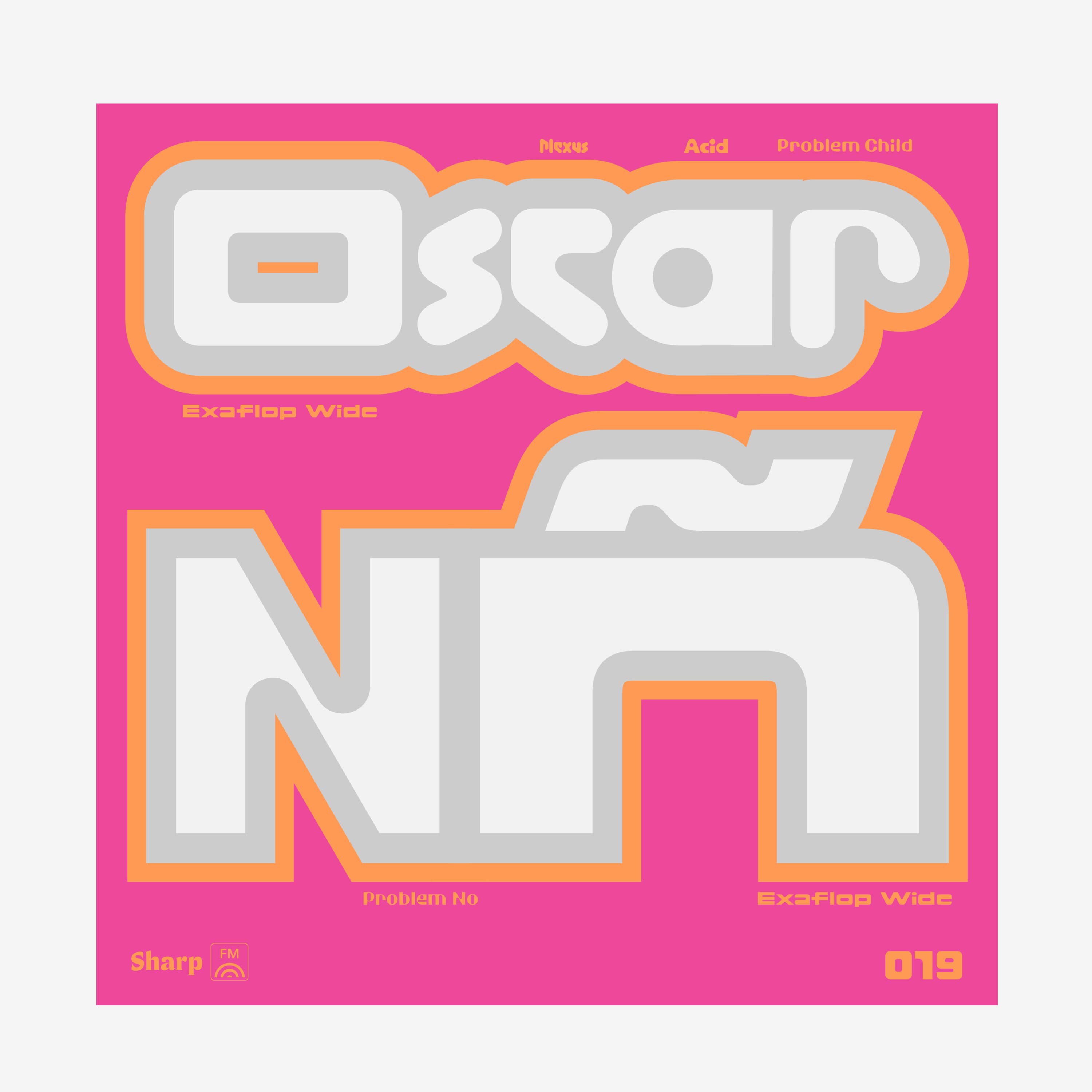
Sharp FM 024: Miho Hatori for Sharp Serif Text
The Viriditas mixtape is a parallel path to the Viriditas project: tracks by artists I deeply admire, assembled as another way of listening.
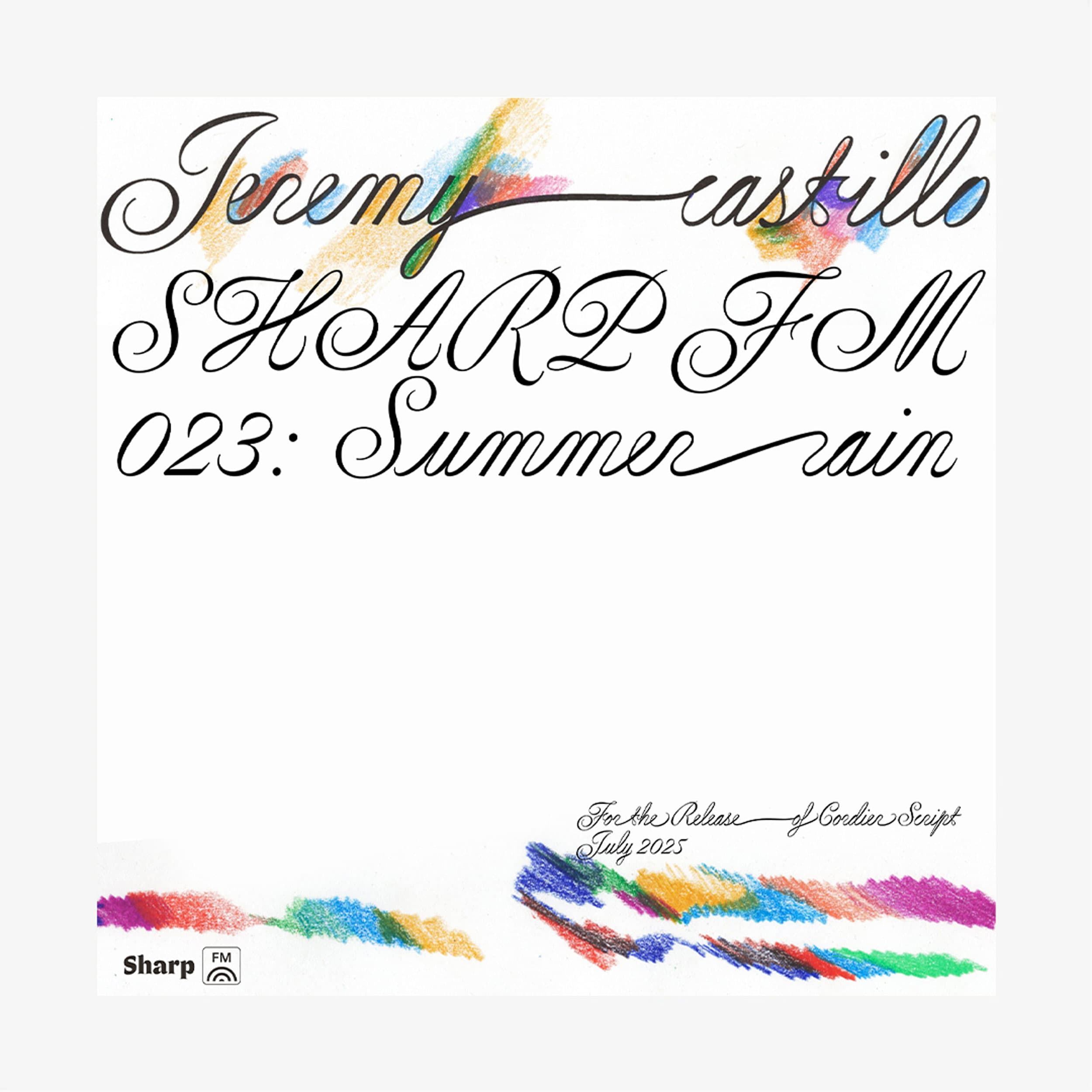
Sharp FM 023: Jeremy Castillo for Cordier Script
A somber summer rain mix with a bit of off the beaten path synthpop, guitar laden disco, reggae dubs, and stuff played at the wrong speed.
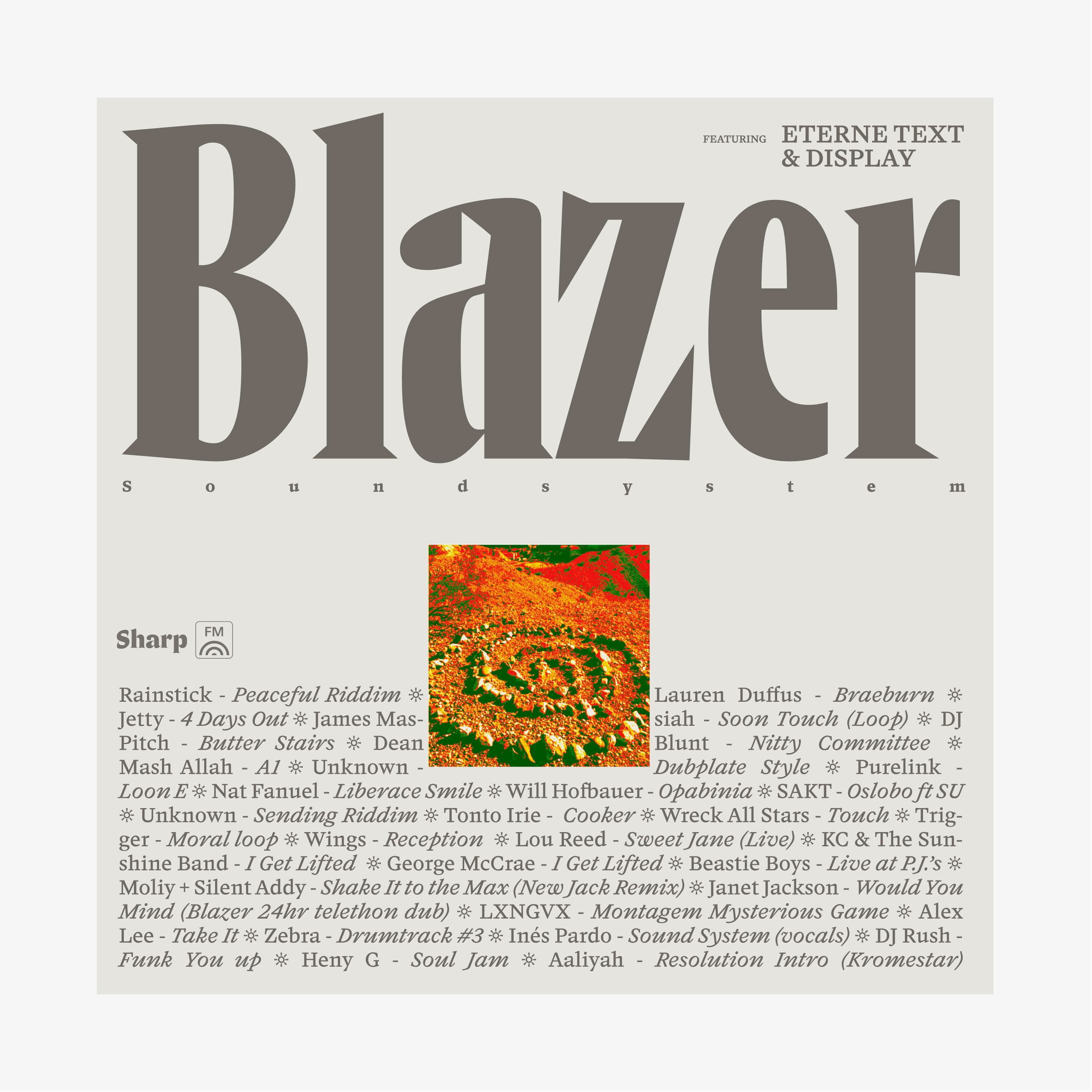
Sharp FM 022: Blazer Soundsystem for Eterne Superfamily
This is a NYC springtime mix, defrosting from interior emotional space, out to the street, the b-ball courts, the club, n2 tha night…
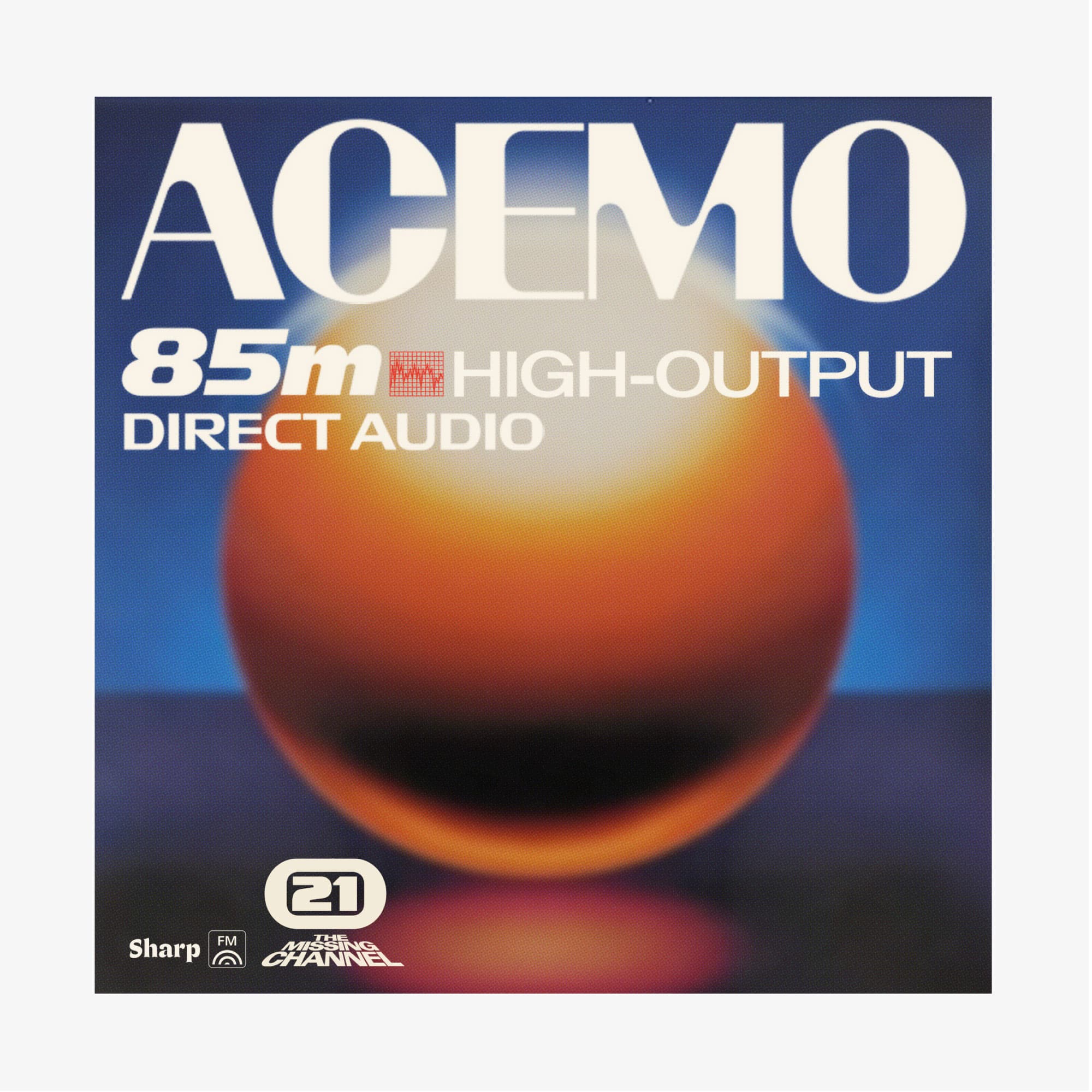
Sharp FM 021: ACEMO for Record Superfamily
Sharp FM 021 comes courtesy of AceMo, one of NYC’s most prolific producers and DJs
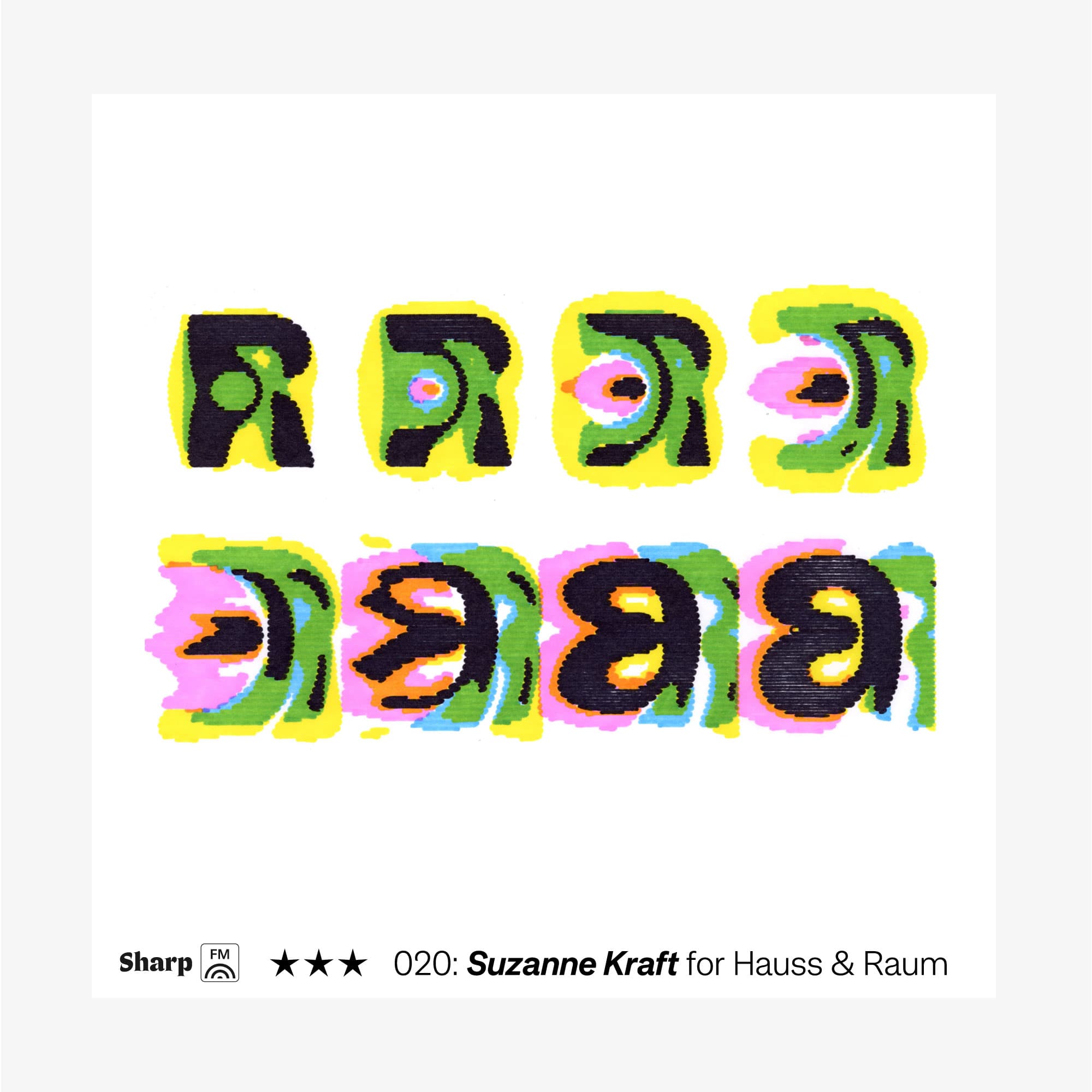
Sharp FM 020: Suzanne Kraft for Hauss & Raum
Recommended environments: driving solo, home alone, or a long metro ride.
Sharp FM 019: Oscar Nñ for DOSS
This mix is dedicated to those sexy drums that you hear in club music. I was inspired by the different drum patterns and instruments that make us dance. At 160-140 bpm, this is one of the hardest mixes I’ve recorded but also one of the most free and unexpected.
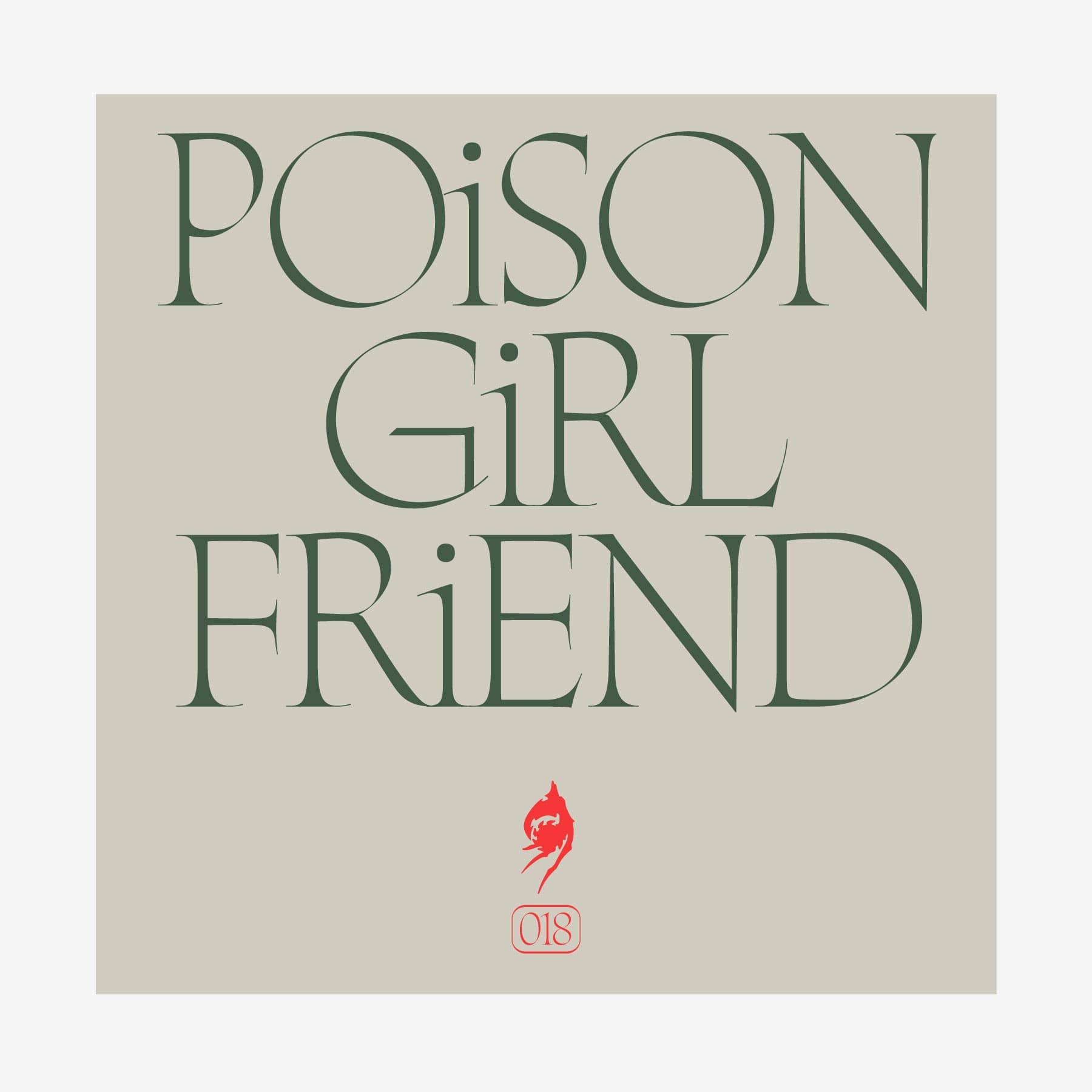
Sharp FM 018: POiSON GiRL FRiEND for Sharp Freehand
"Gen X meets Gen Z.
Love, love, love…
L’amour, l’amour…
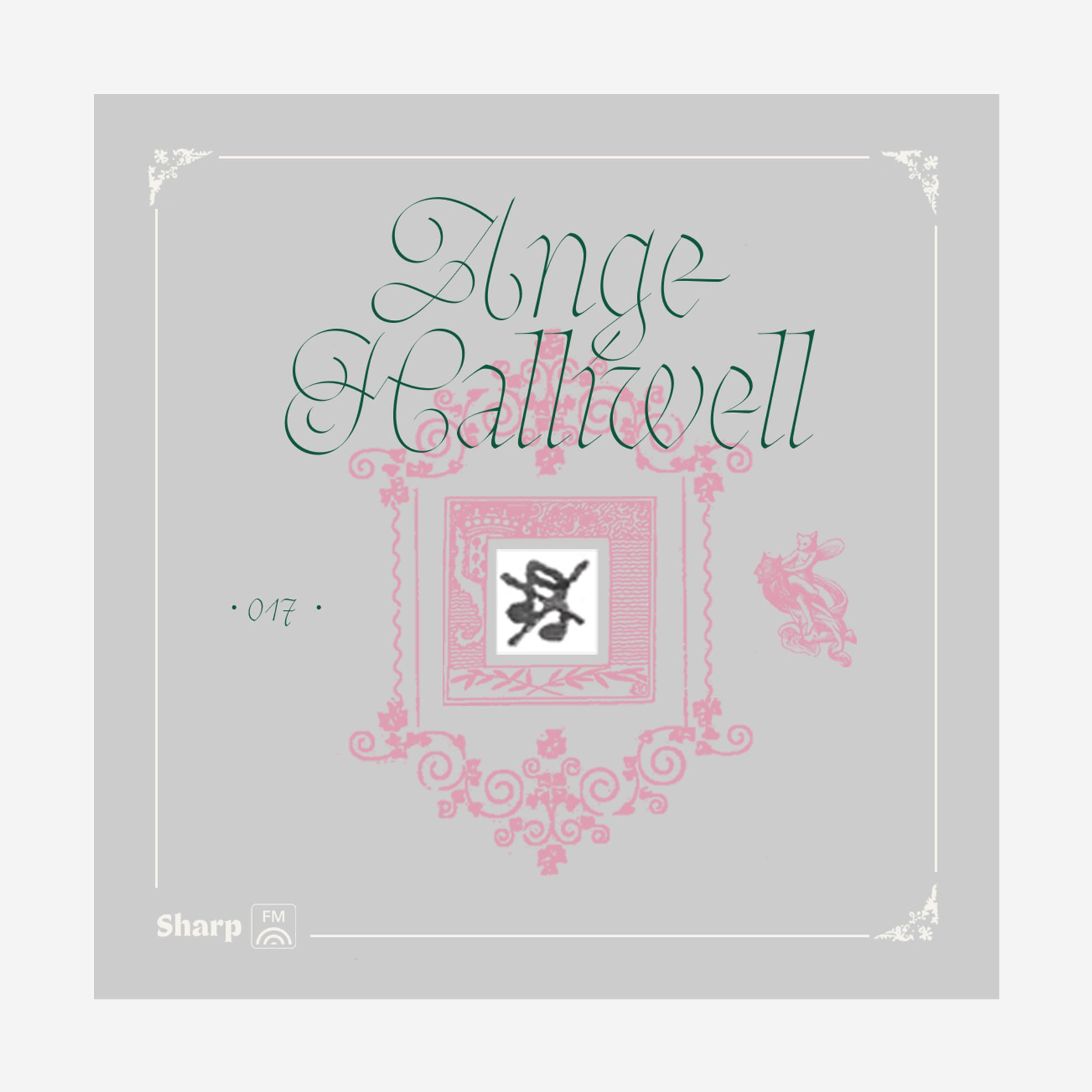
Sharp FM 017: Ange Halliwell for Sharp Fraktur
Based in the verdant countryside of Southwest France, he continues to make harp music with hypnotic arpeggios and sung, spoken or shouted voices.
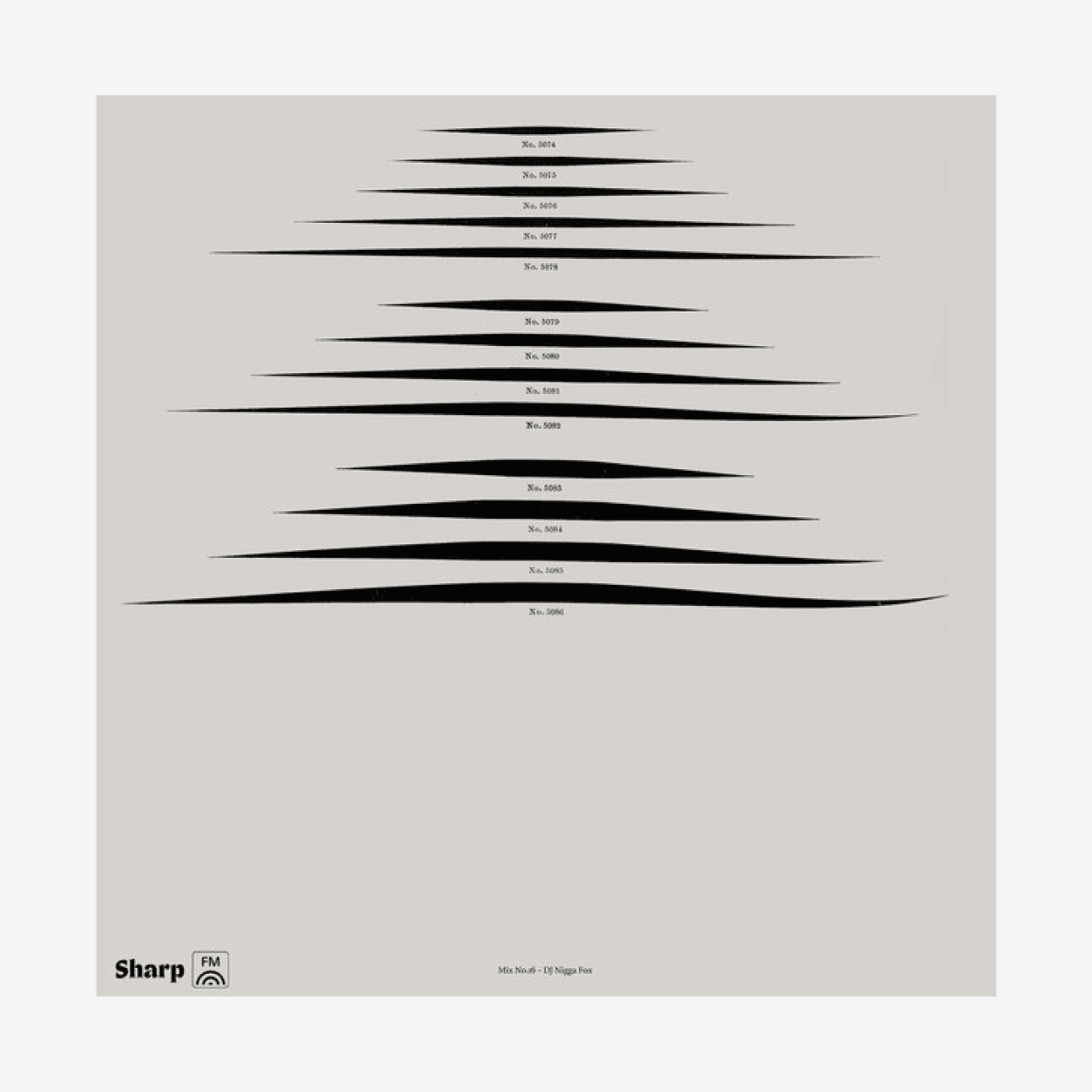
Sharp FM 016: DJ Nigga Fox for Sharp Serif
DJ Nigga Fox is a limitless innovator of batida, the brain-and-body dance movement that's been erupting from Lisbon's diasporic club scene. Cover art previews Sharp Serif at small and miniature settings.
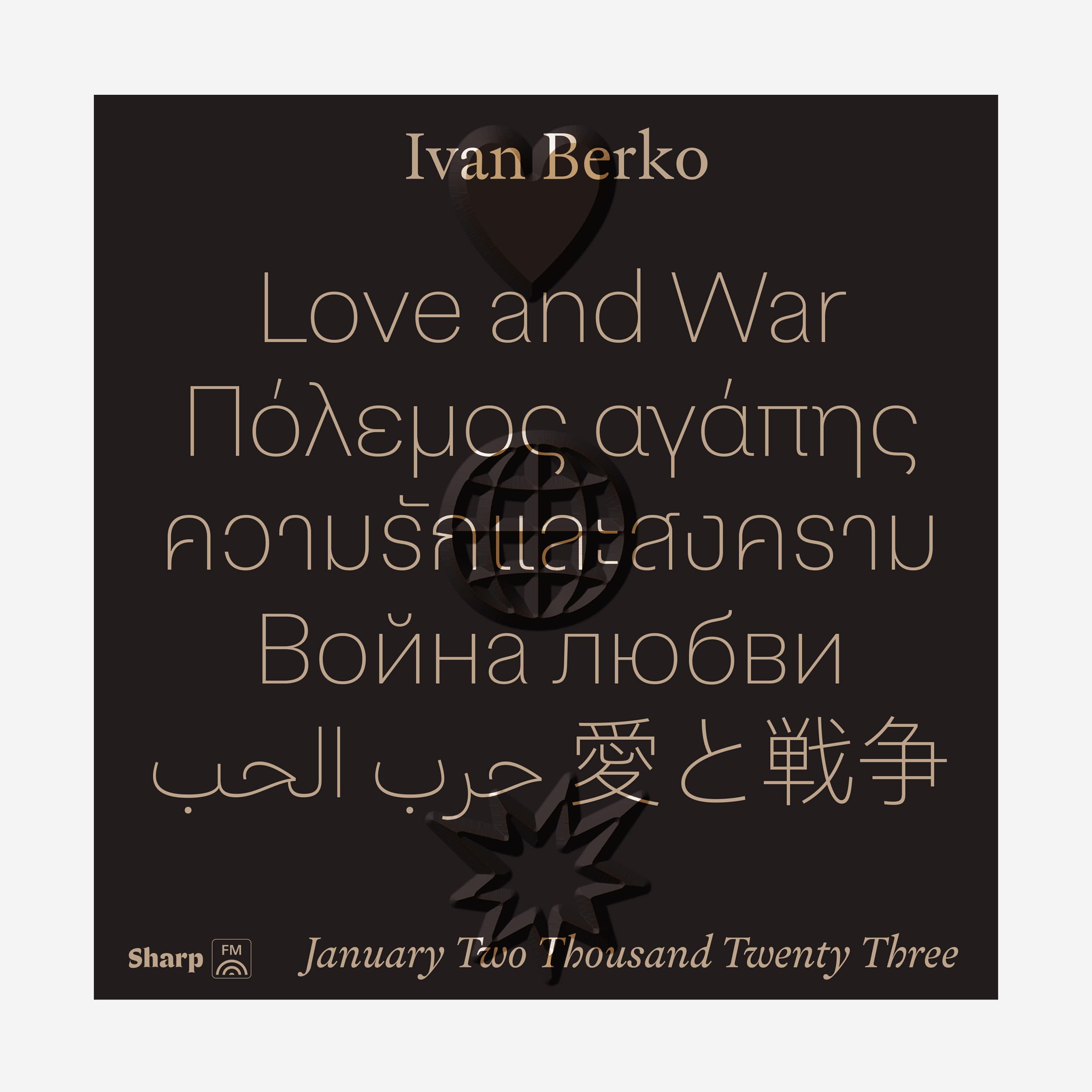
Sharp FM 015: Ivan Berko for Sharp Serif & Sharp Earth
“This mix is about the possibility of being in love while international war rages on.” –Ivan Berko
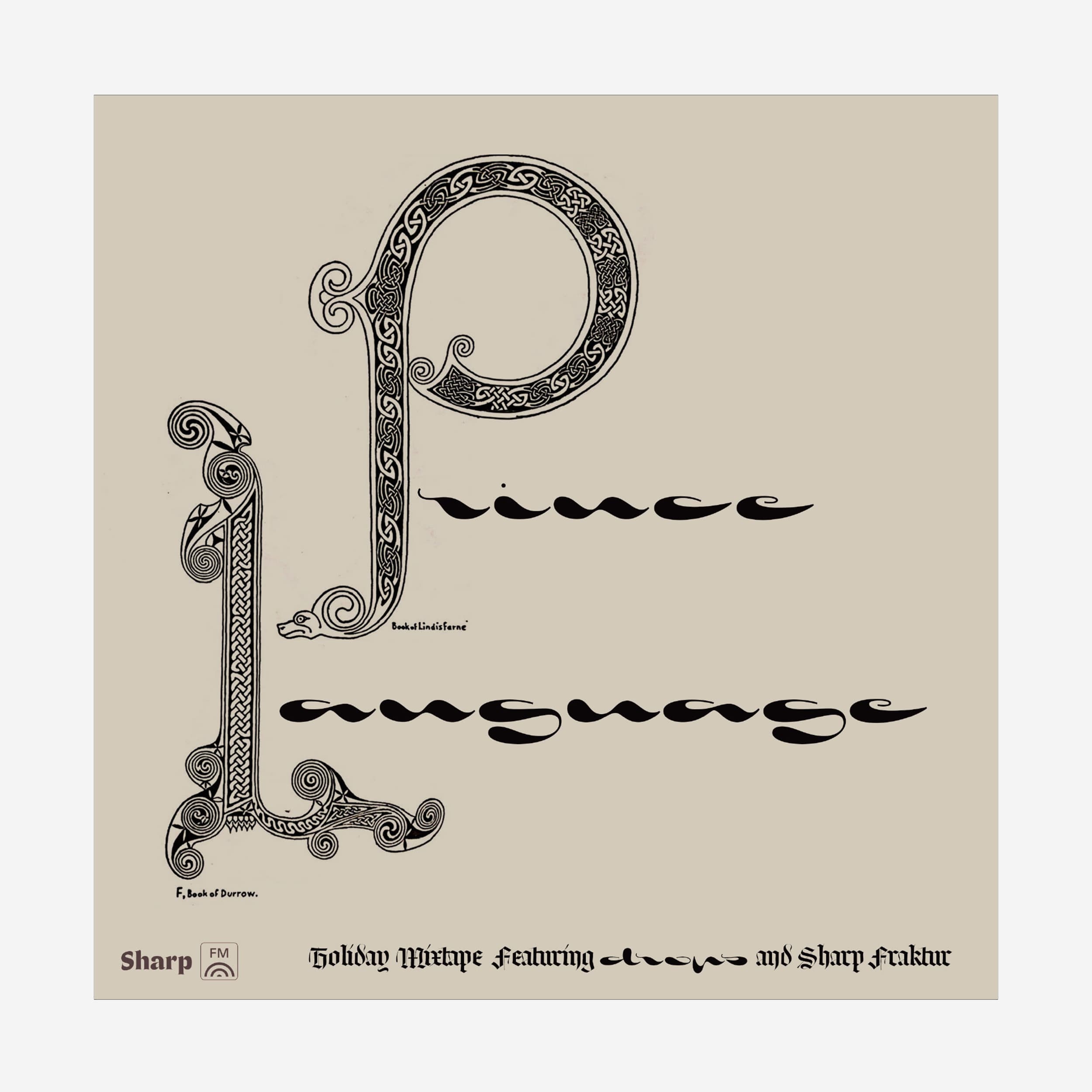
Sharp FM 014: Prince Language for Drops
Prince Language's ambient mix gets paired with My-Lan Thuong's inky exploration, Drops, for a parallel play in soothing rhythm and texture
Sharp FM 013: Yu Su for Centra Mono & Post Grotesk
a dubbed-out montage that tours the gorgeous freak terrains of the Fourth World
Sharp FM 012: J. Albert & Will August Park for Doyle
NYC multi-instrumentalists J. Albert and Will August Park put together a mix of unreleased material and personal favorites. The inky, friendly shapes of Doyle define the cover art, paying homage to the delivery trucks that define the cityscape.
Sharp FM 011: Lovefingers' Lazy Summer Mix for Octave
LA's Lovefinger's brings a day dreamy end-of-summer mix to Sharp FM, with Marc Rouault's Doss Acid bringing a dose of visual synesthesia
Sharp FM 010: Triad God feat. Palmistry for Respira & Sharp Earth Pan Euro
The mysterious London MC surfaces with a rare mix alongside a new heavy weight of Sharp Fraktur, its fine composition in perfect tension with its dramatic flair, much like our musical guest.
Sharp FM 009: Tornado Wallace for Greenstone & Tarnac Sans
The Berlin-based producer and DJ delivers a cinematic hour pulled from a Letterboxd lover's selection of soundtracks; co-stars Greenstone Italic and Tarnac Sans make a handsome pair on the cover art.
Sharp FM 008: Ian Kim Judd for Greenstone
Ian Kim Judd's meditative mix is paired with Greenstone's large, flaring capitals and delicate, expansive serifs on the cover, which are beautifully contrasted by Laurel Schwulst's soft spherical gradient artwork.
Sharp FM 007: Umfang for Carta Nueva & Octave
Brooklyn's finest techno DJ expands her horizons for Sharp FM's Taurus mix, giving us the opportunity to showcase the virtuosic new direction of Carta Nueva Backward.
Sharp FM 006: Tim Reaper for Soraiz
Modern jungle's most venerated pioneer delivers a custom vinyl mix with Connor Davenport's parametric exploration Soraiz on the cover—retro future indeed!
Sharp FM 005: DJ Sweatpants & Mike Devine for Doss
A wet 'n wild musical whirlpool soundtracked by DJ Sweatpants with bumpers by Mike Devine and typography using Marc Rouault's Doss family.
Sharp FM 004: Salamanda for Sharp Grotesk Korean
Seoul-based Salamanda debut their first mix of 2023 for the Lunar New Year and Aquarius season, giving us an opportunity to preview Sharp Grotesk Hangul
Sharp FM 003: S&M for Centra Mono & Tarnac Sans
Our first Sharp FM mix of 2023 comes courtesy of Brooklyn-based artist Sam Clarke, whose bracing, elemental mix is complemented by the precise curves and strokes of Josh Finklea's Octave.